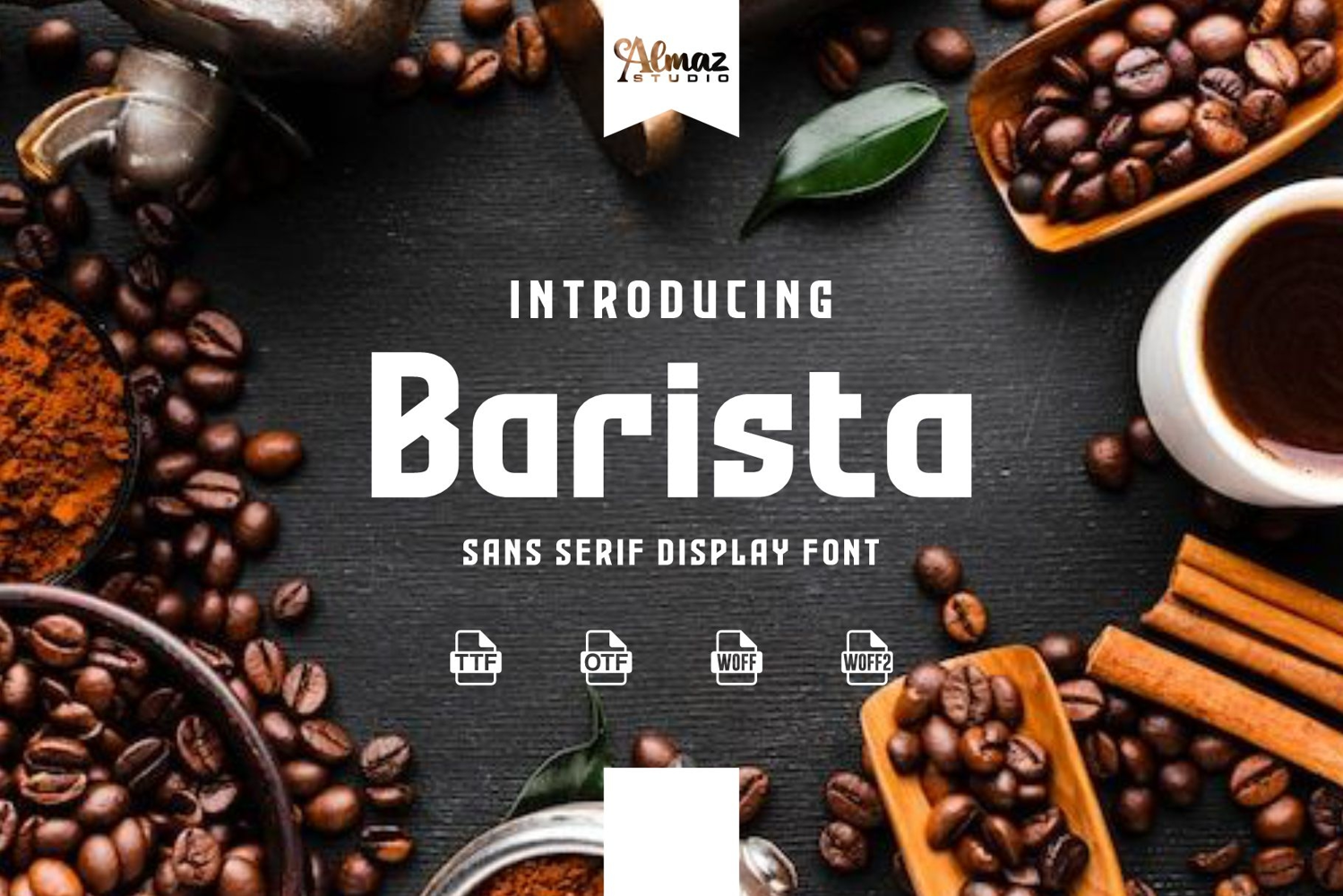
Barista
Barista is a sans serif display font with a bold, strong, and modern character. It features solid letterforms, clean edges, and confident proportions that create a powerful visual presence. The design feels contemporary yet warm, making it suitable for both professional and lifestyle-oriented themes.
Barista is especially well suited for coffee branding, café menus, packaging, logos, signage, posters, and advertising materials. Its sturdy and readable style makes it ideal for headlines and display use, ensuring clear communication and strong brand recognition.